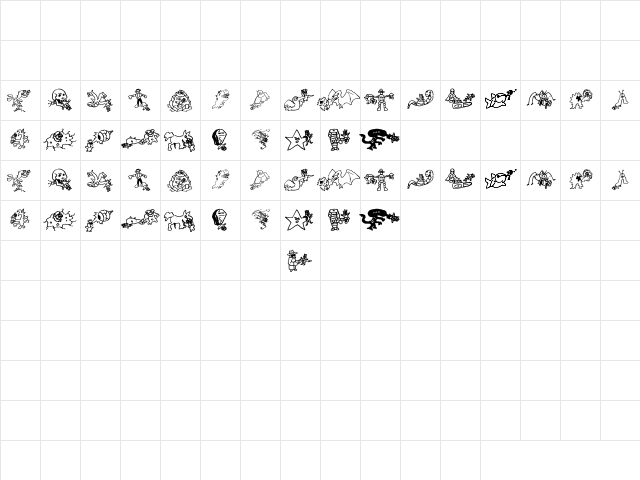
KillMeCraig AOE Regular
Design Context for KillMeCraig AOE Typeface
KillMeCraig AOE is a composed and adaptable typeface that performs quietly and consistently across a wide range of design contexts.